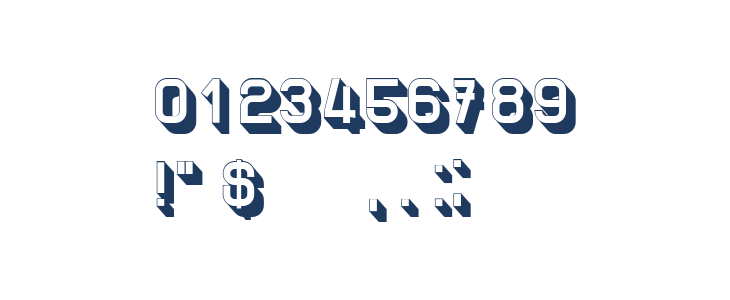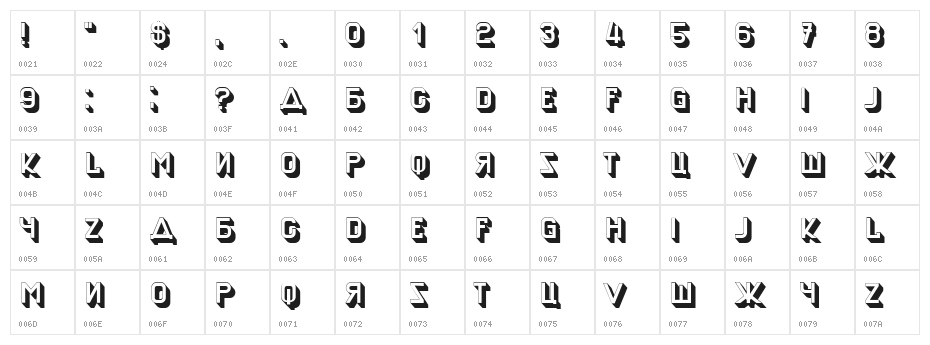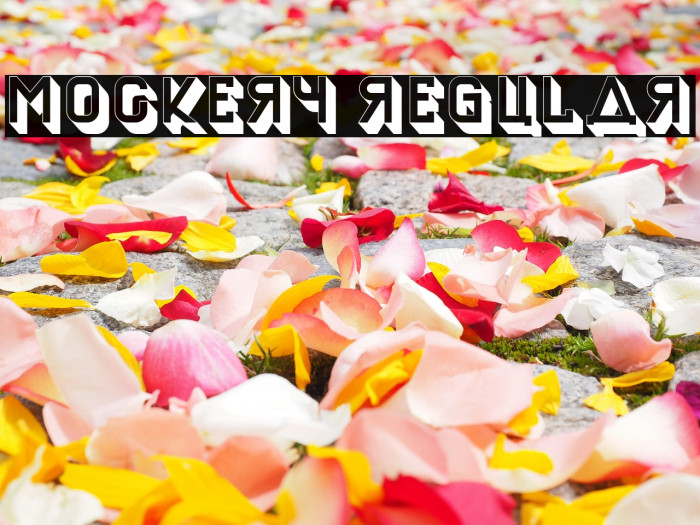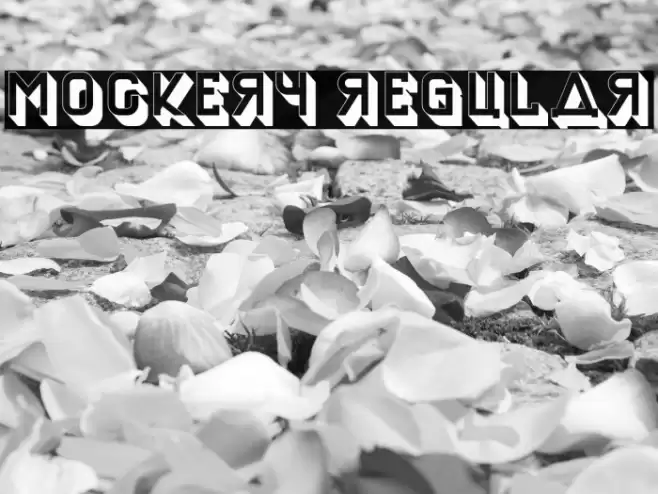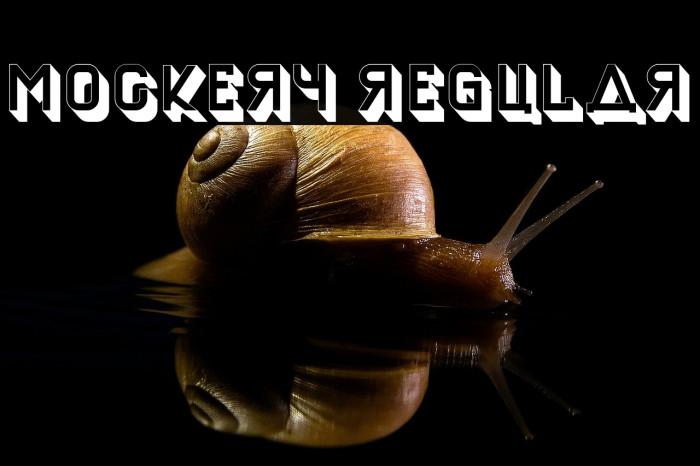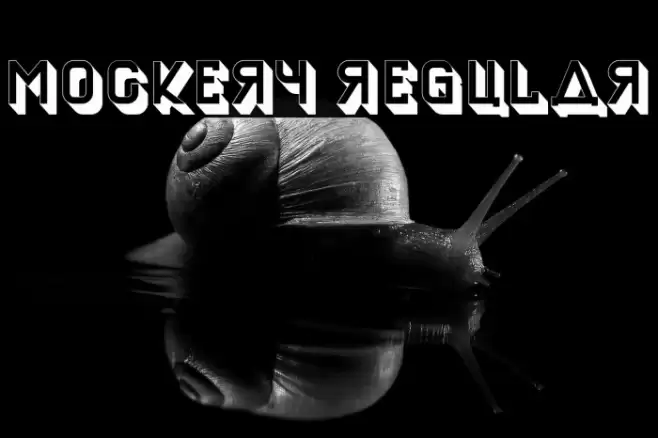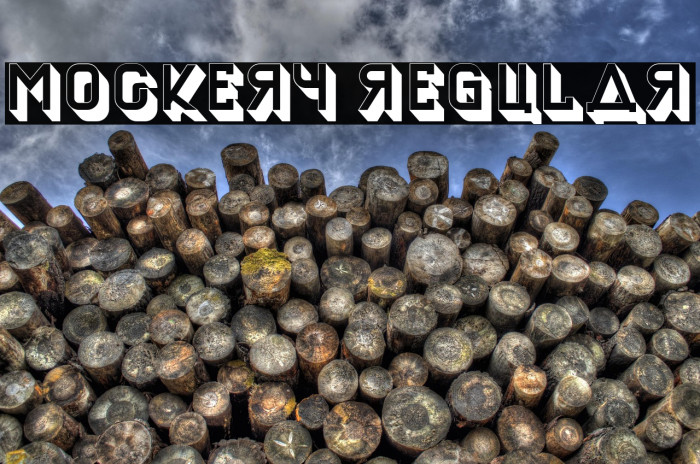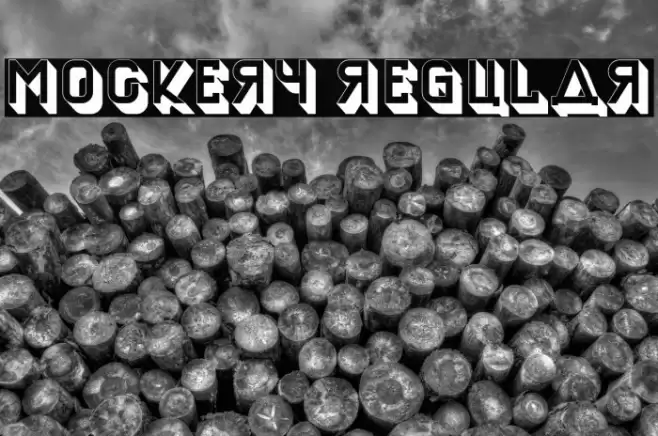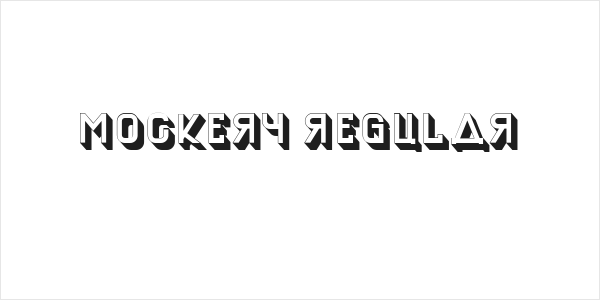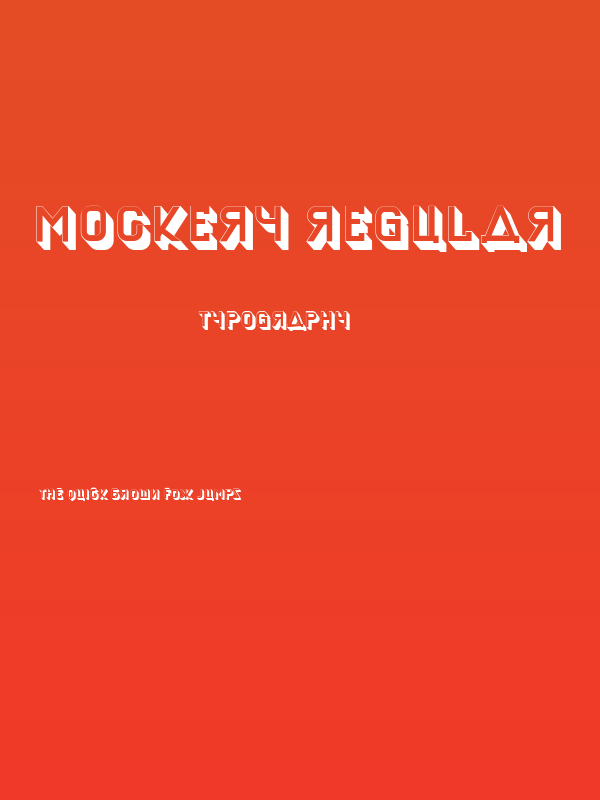
Mockery Regular Font
Mockery Regular Description
This font features a bold, three-dimensional style with a strong shadow effect that gives each character a sense of depth and solidity. The characters are uppercase and have a geometric, angular design that conveys a modern and industrial feel. The shadow effect is consistent across all characters, enhancing the visual impact and making the text stand out prominently. The font includes numbers and a selection of special characters, maintaining the same bold and shadowed style. The overall appearance is striking and attention-grabbing, making it suitable for designs that require a strong visual presence.
| Proposed Projects | Ideal for poster designs, logos, headlines, and any project that requires a bold and impactful typeface. |